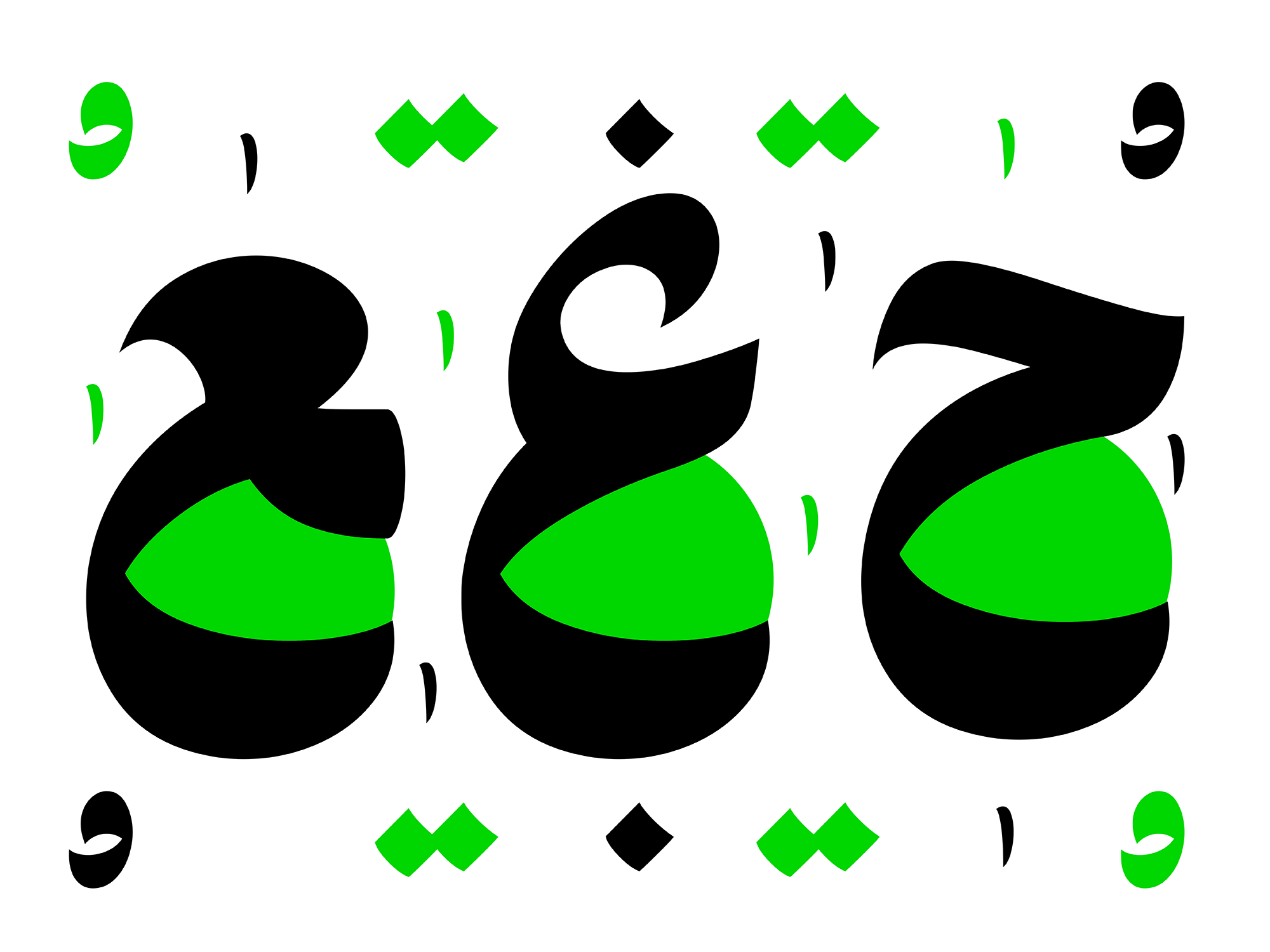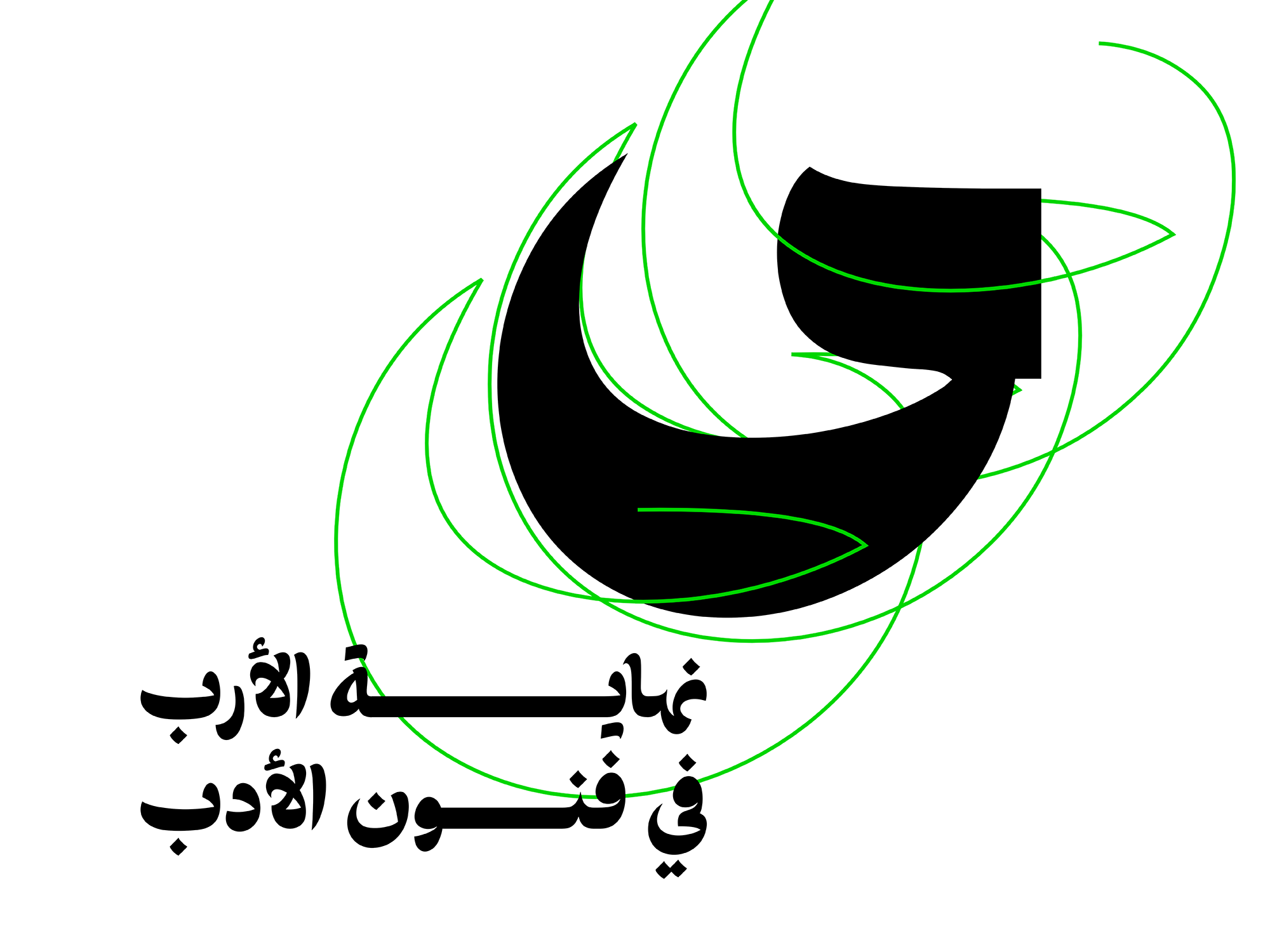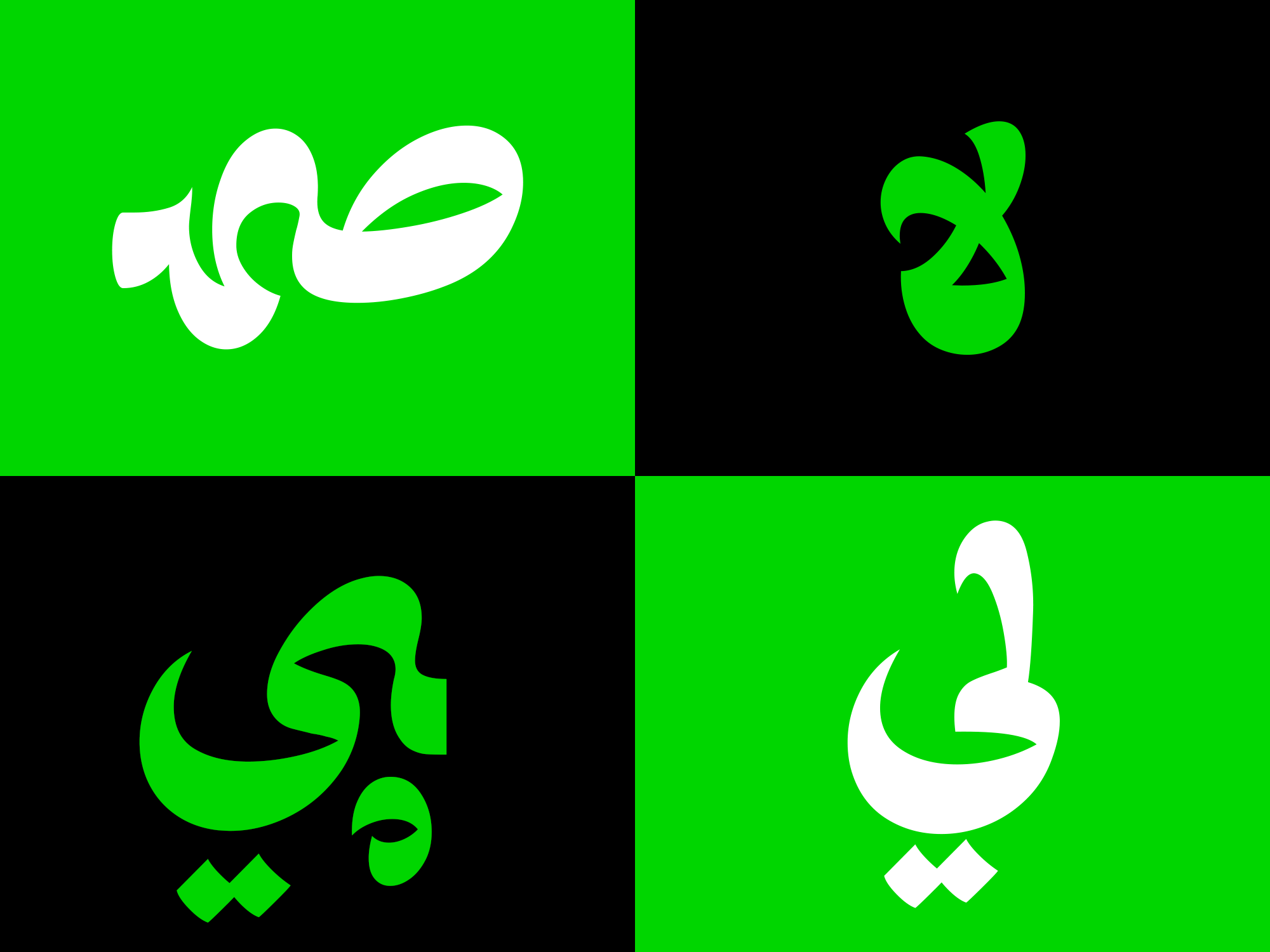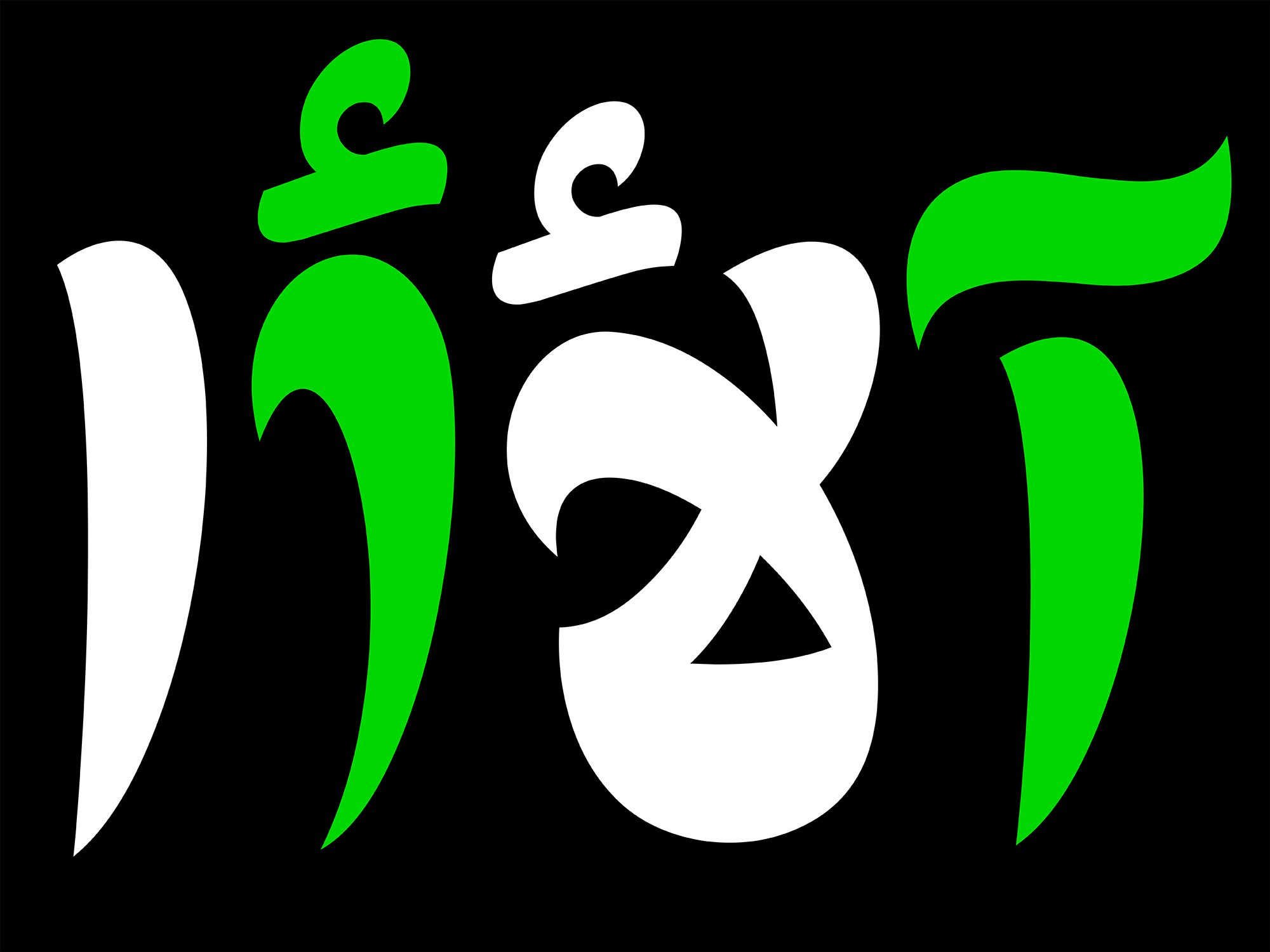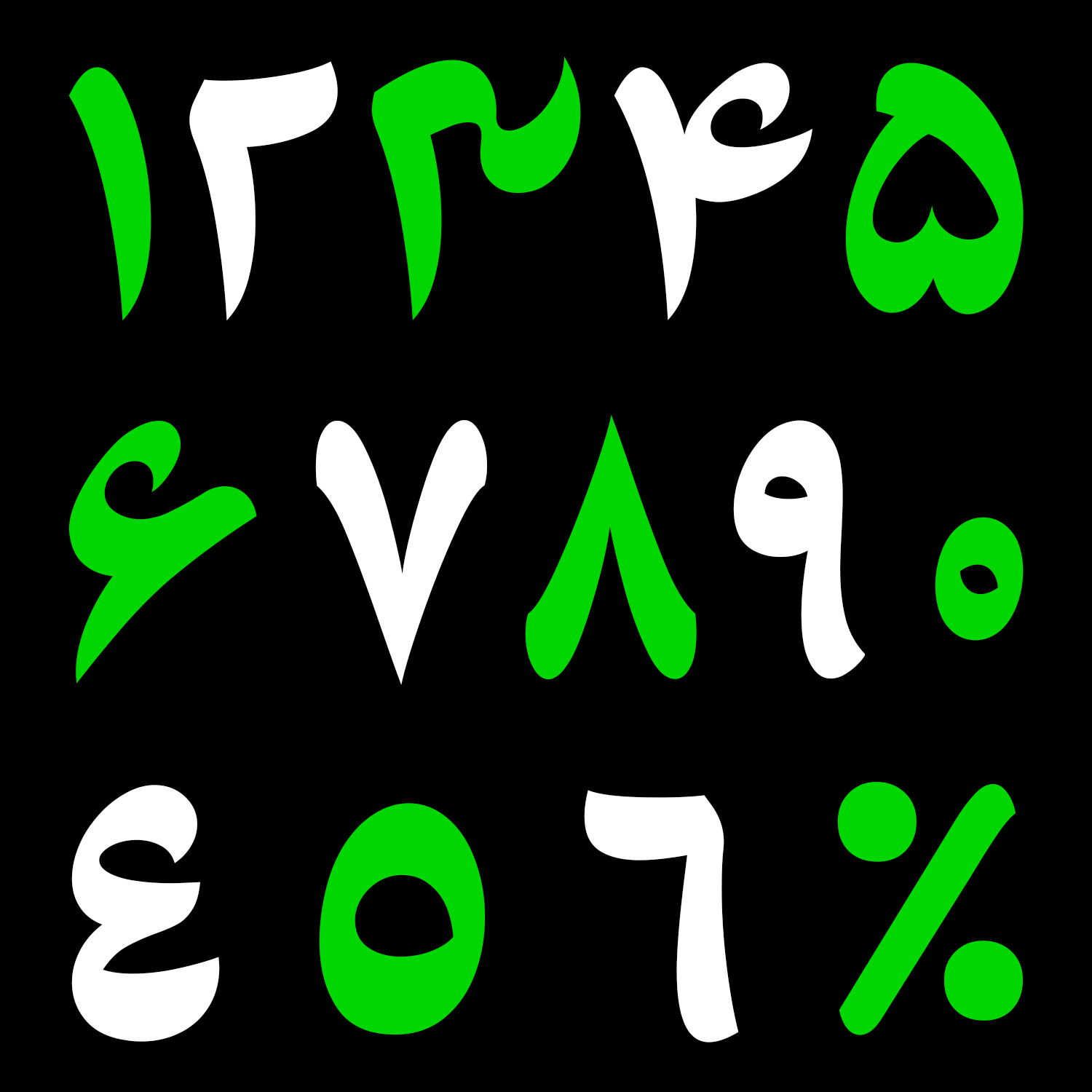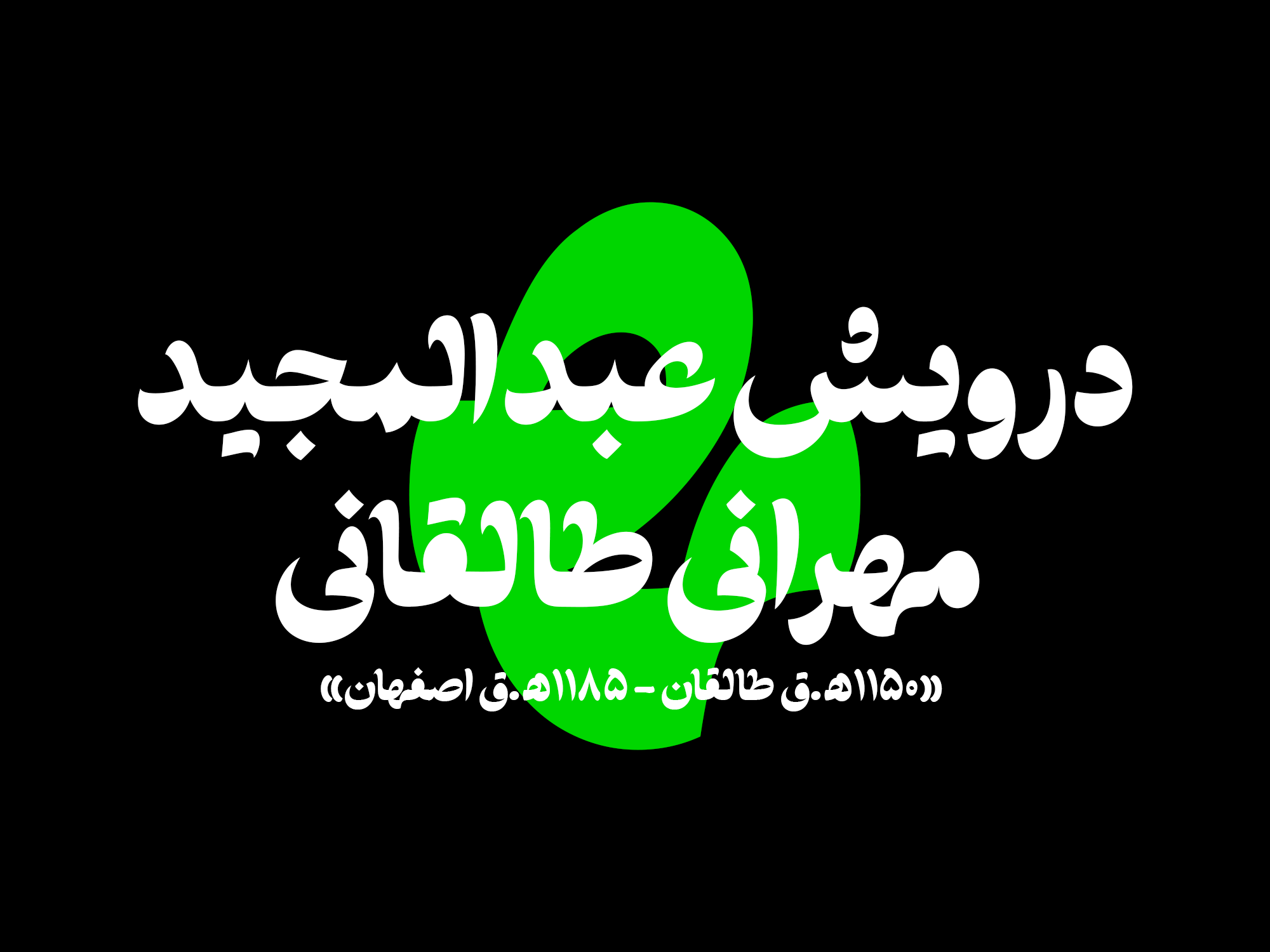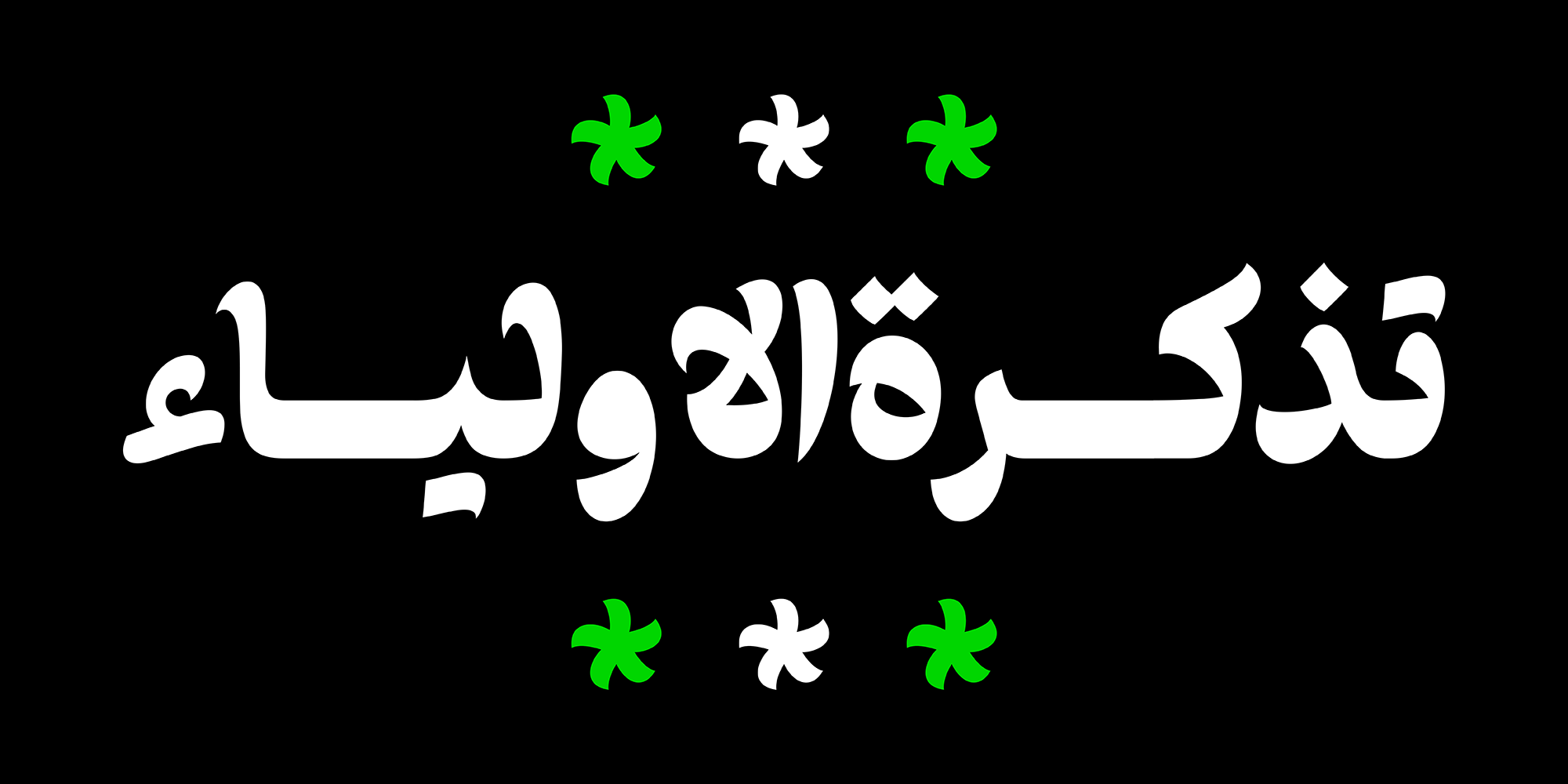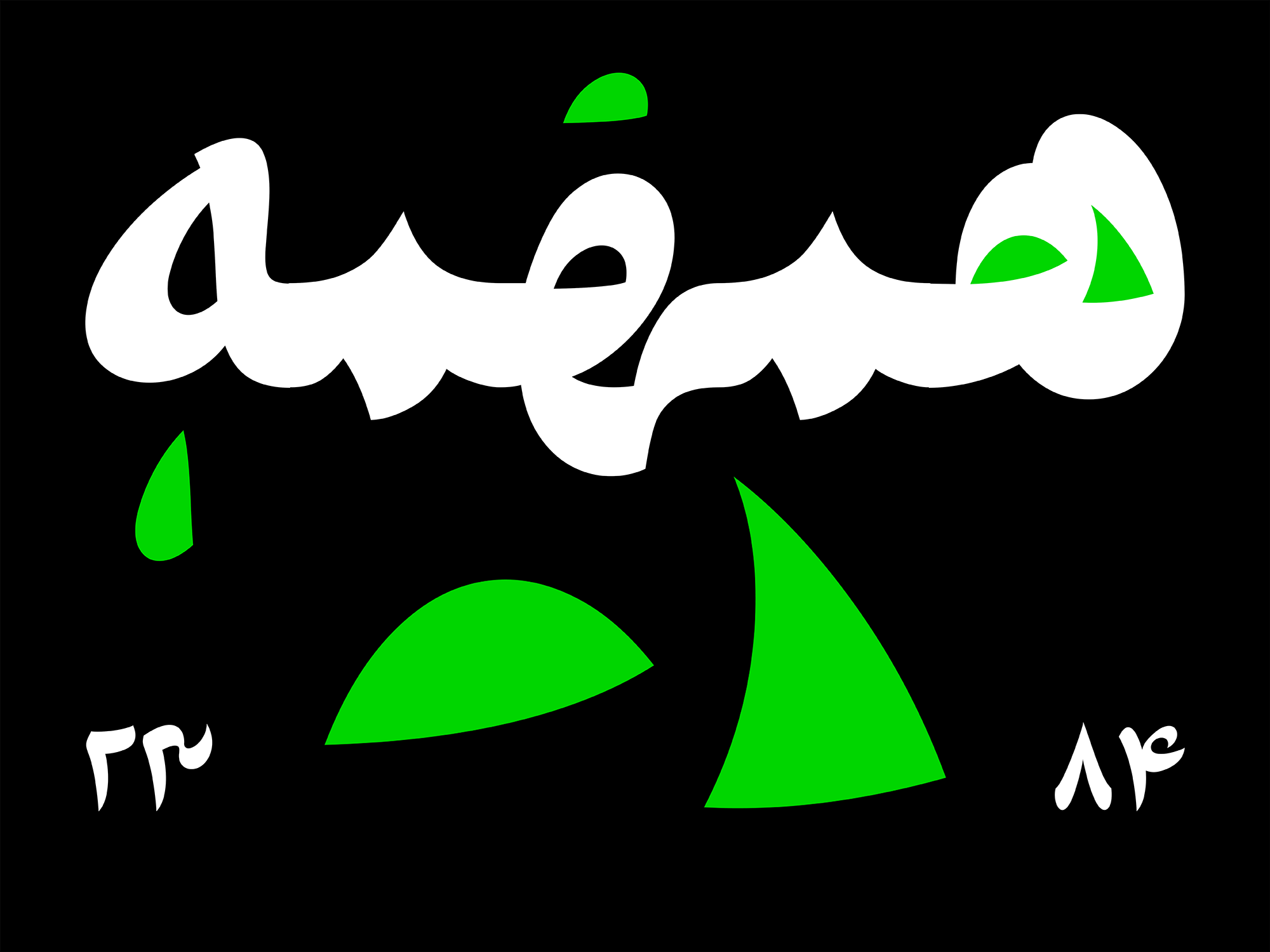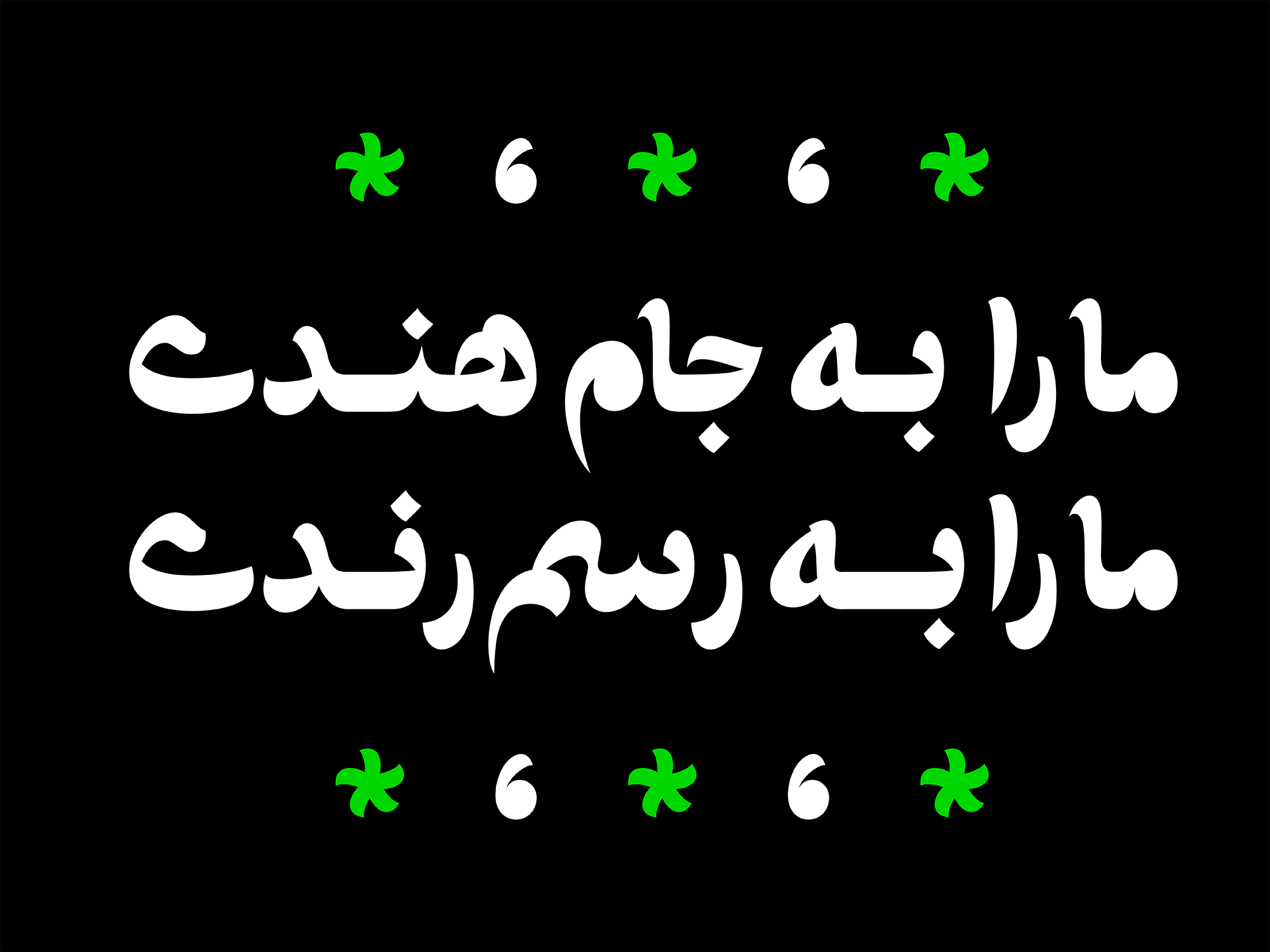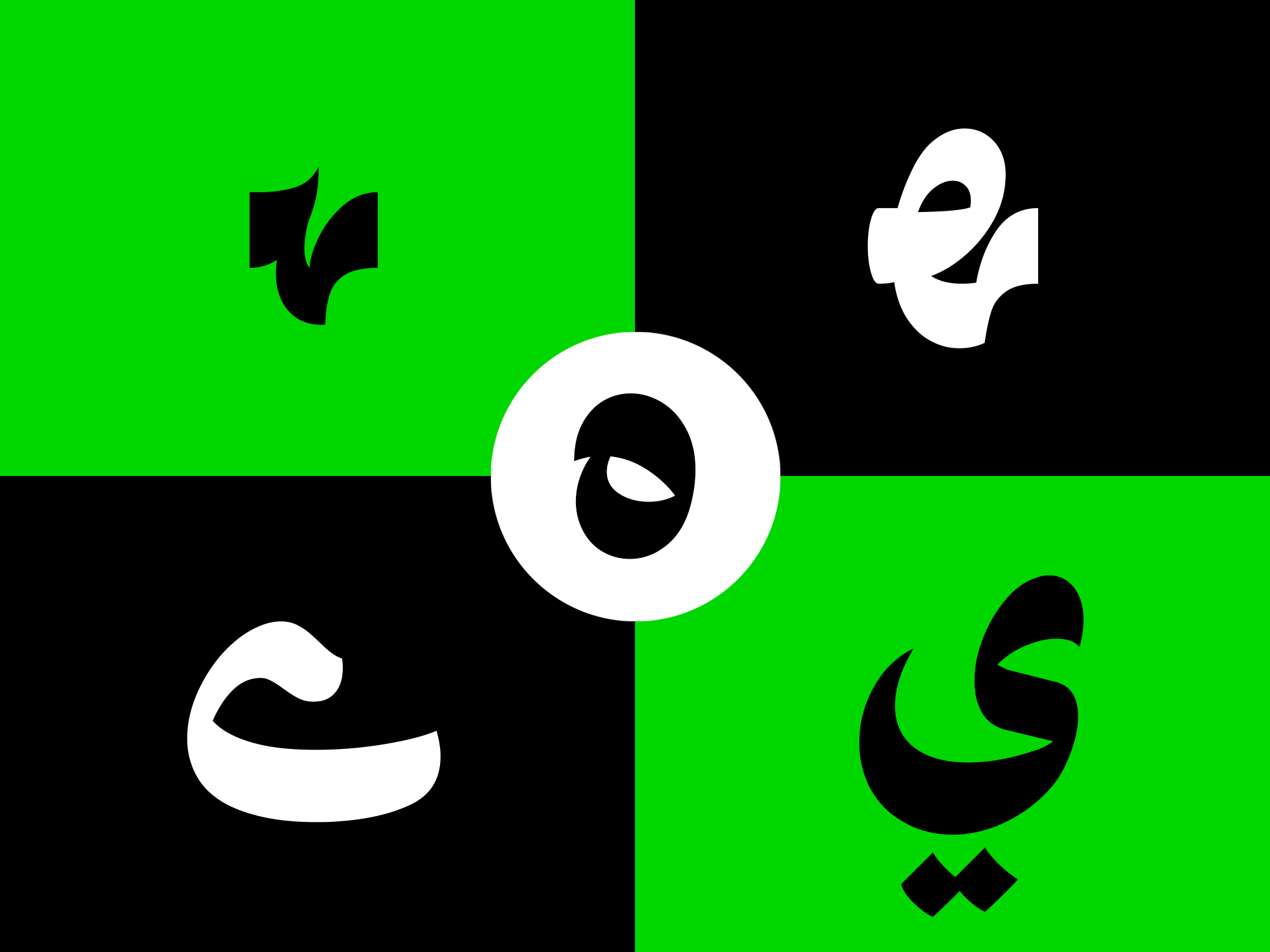
Tarlan
Tarlan font remembers the past, but never repeats it.
Tarlan did not begin as the revival of an existing script. It emerged through the observation of different writing traditions, where letterforms were repeatedly explored with pen and ink—free from the formal rules of any single script. Through this process, new forms gradually evolved into a language of their own.
Traces of various writing traditions remain embedded in these forms, not as quotations to be preserved, but as qualities reinterpreted within a new visual system. Familiar echoes may occasionally appear, yet no single script alone defines Tarlan.
Its compact proportions, continuous curves, and sharp terminals create a rhythm that remains fluid without losing refinement. It is this balance that gives Tarlan its distinctive visual character.
Tarlan is a single-weight typeface designed for headlines and short to medium-length texts, where the presence of the letterforms is as important as their readability. It allows form to express itself without overwhelming the content.
The name was chosen only after the typeface had fully taken shape. Once the letterforms had found their own character, Tarlan became the name that reflected it most naturally.
Tarlan font has built its language not from similarity, but from the coexistence of differences.